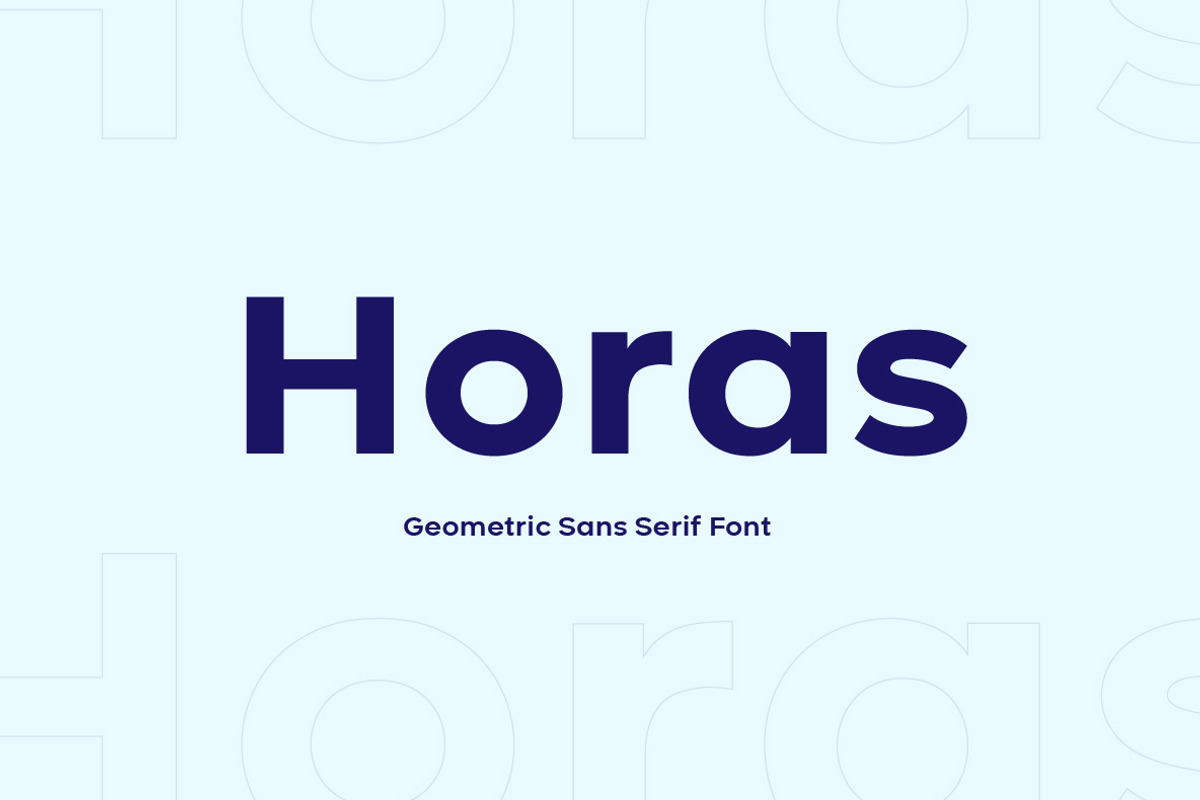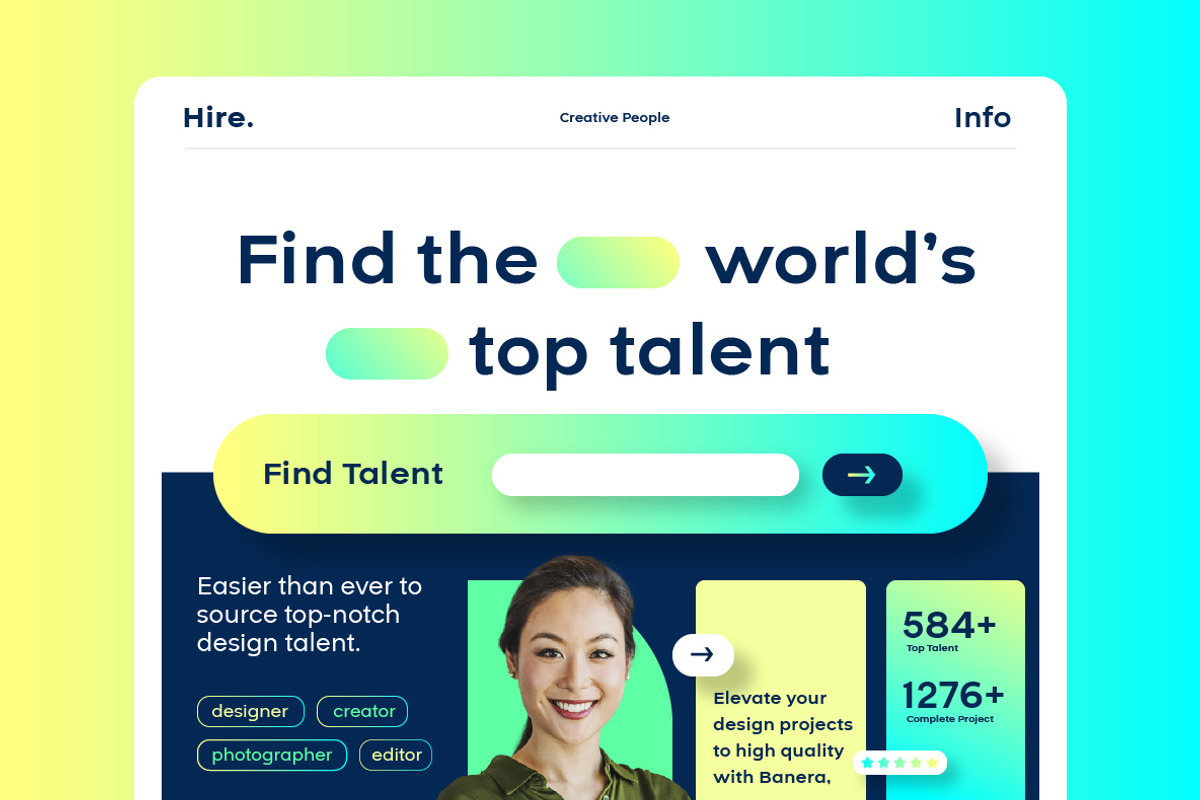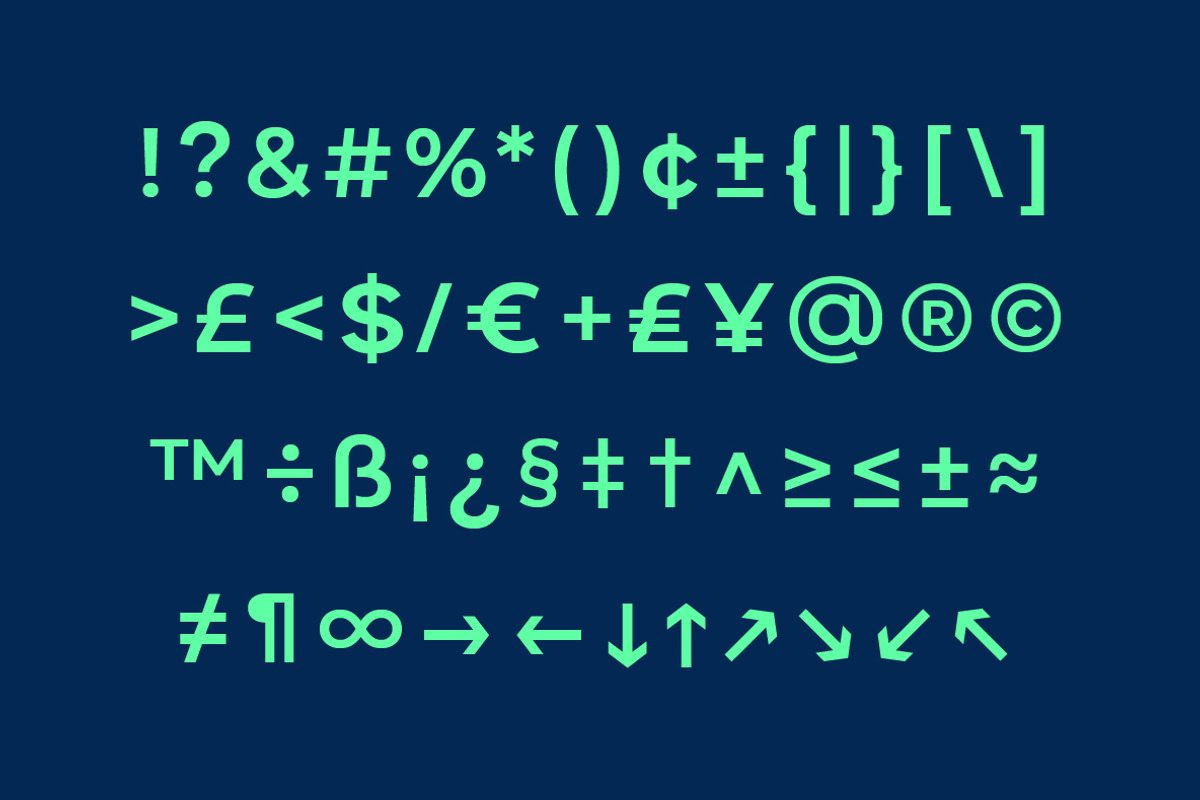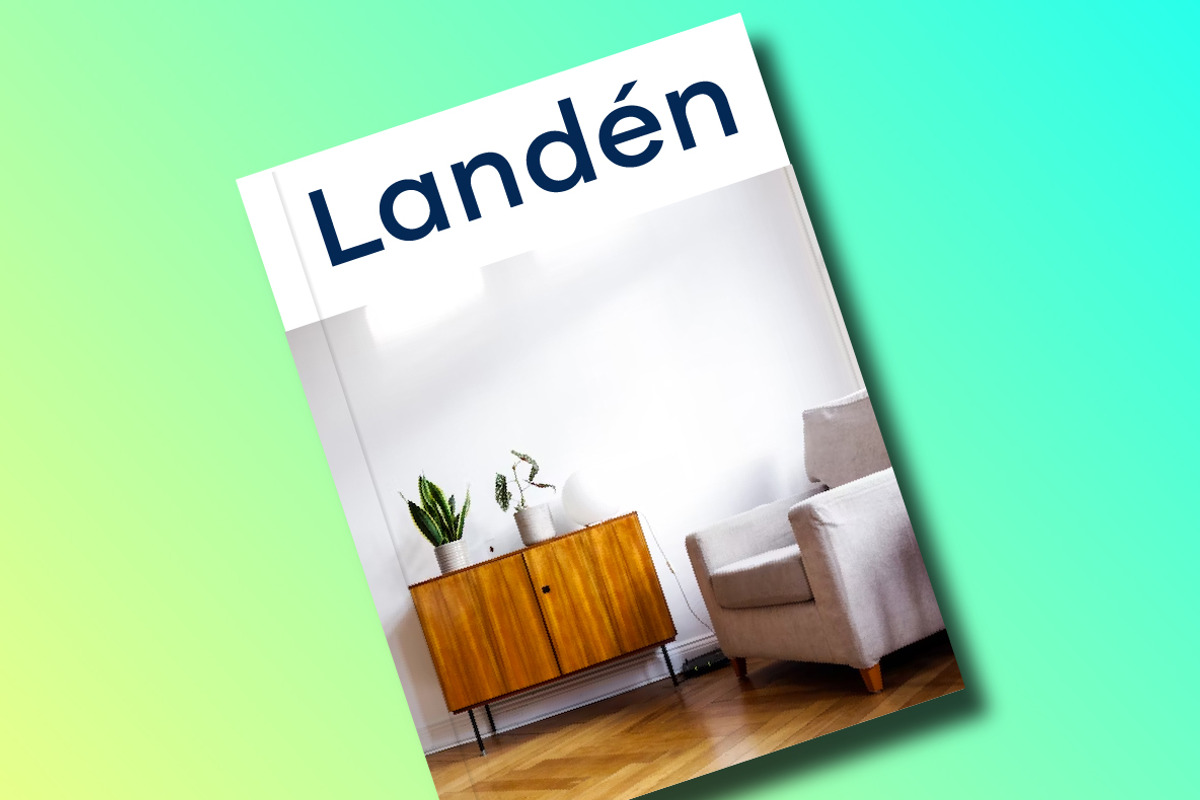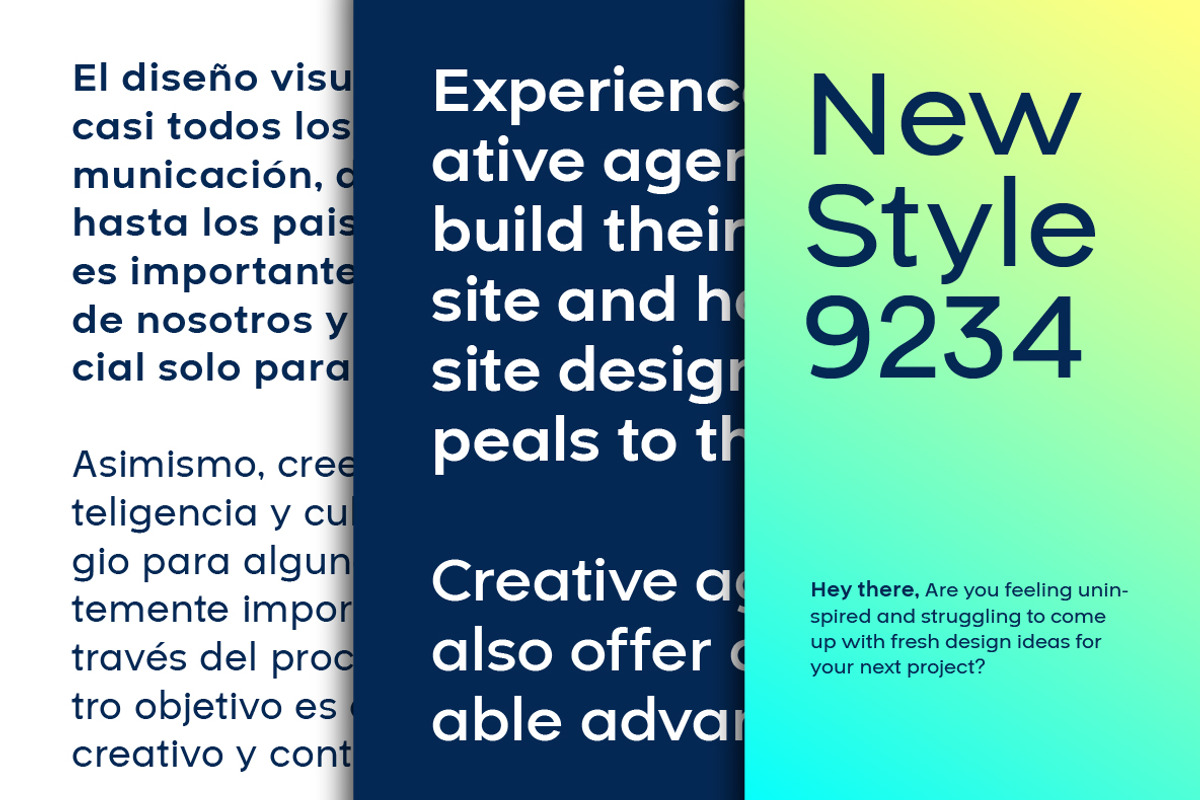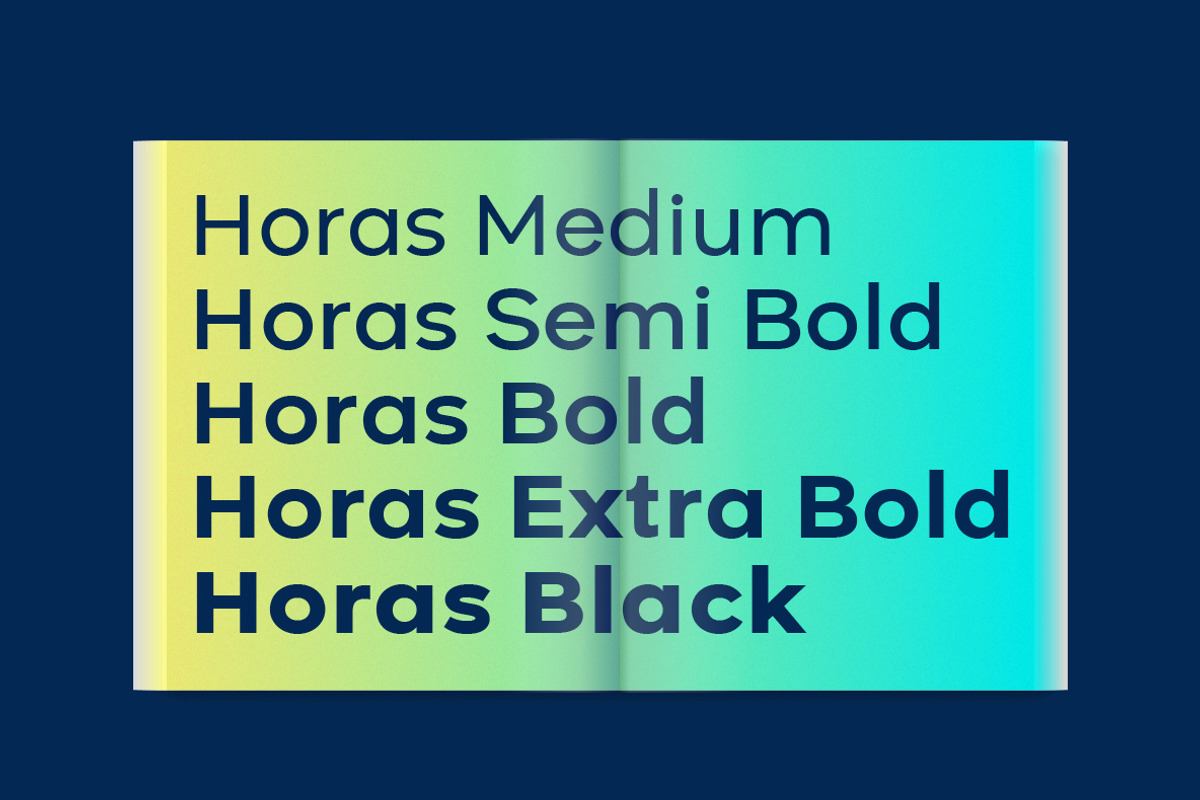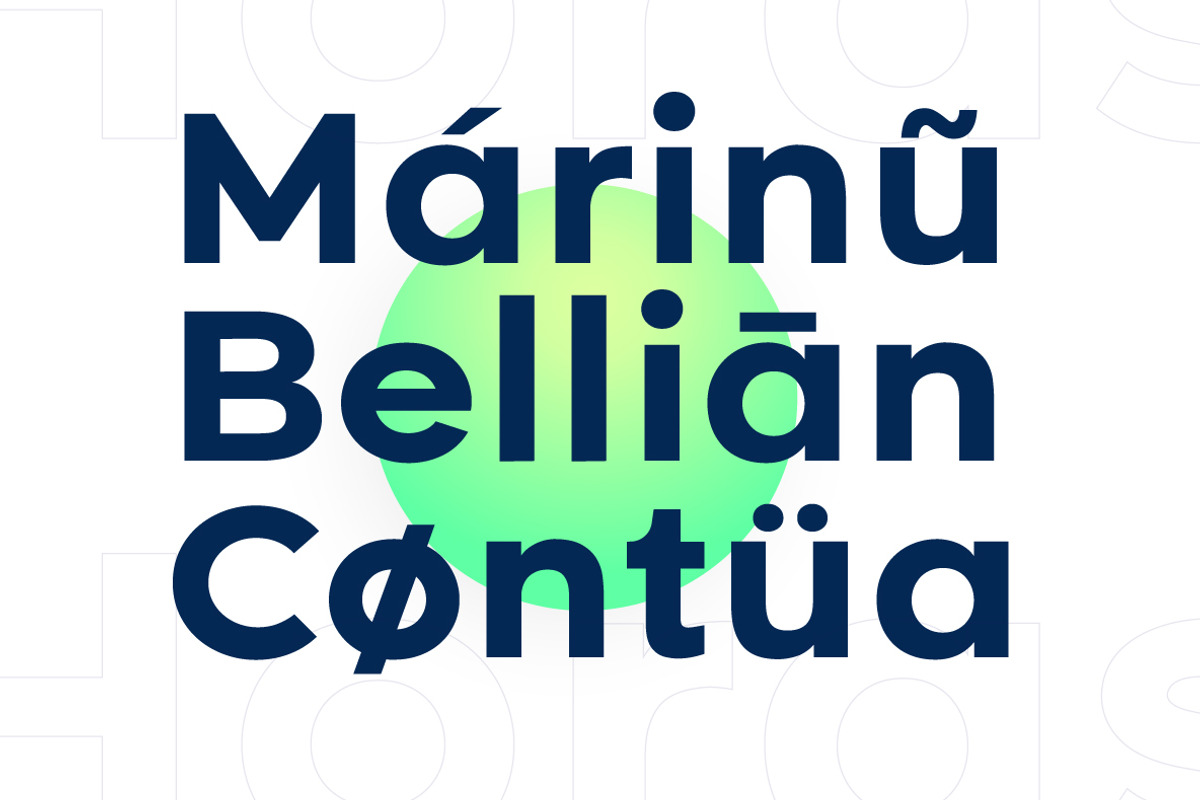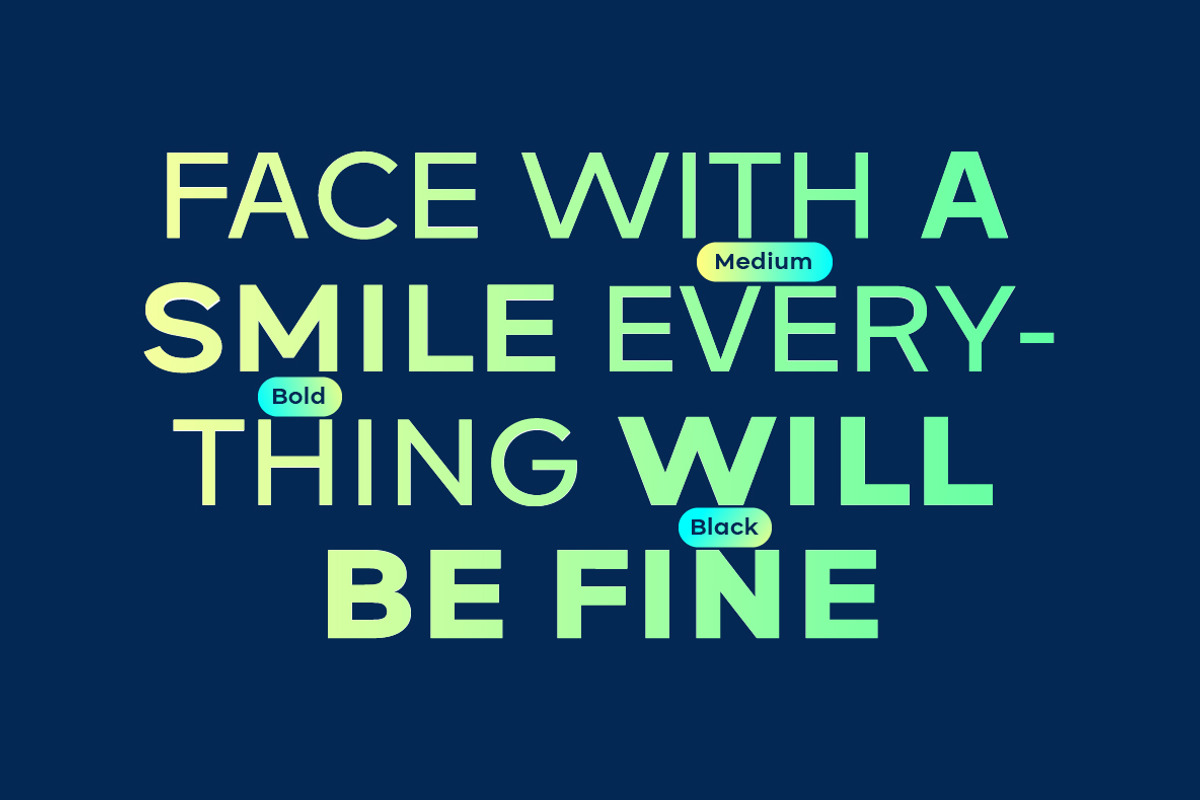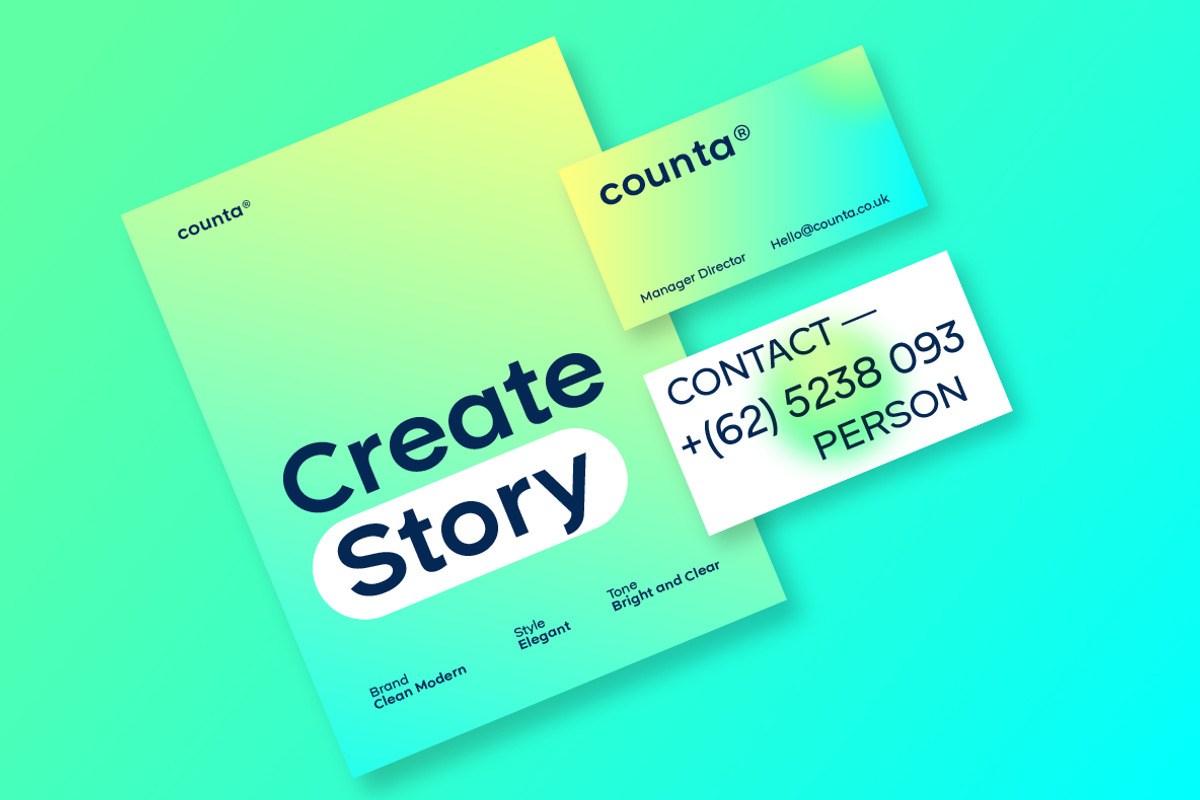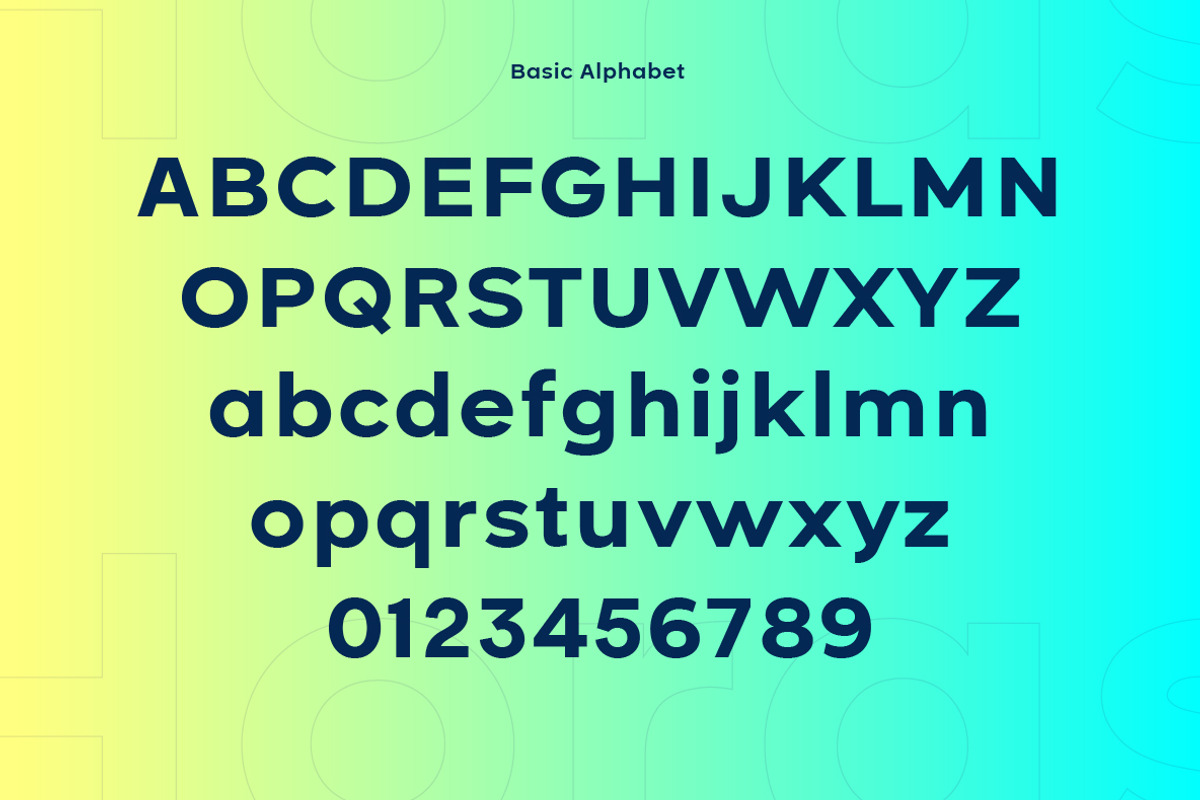
Horas Geometric Sans Serif
Horas Sans Serif Geometric is a stunning and modern font, designed with a touch of minimalism and attractive geometrics. This font combines the beauty of serif-free design with the boldness of geometric shapes, creating a fresh, clean look for a variety of design projects.
This font is suitable for use in various media, both print and digital. When used in print designs, Horas Sans Serif Geometric will give a clean, professional look, while in digital designs, it will look crisp and clear on screens of any size.
So, are you looking for a clean, modern, and consistent font with stunning geometric elements? Horas Sans Serif Geometric is the perfect choice to take your design projects to the next level.